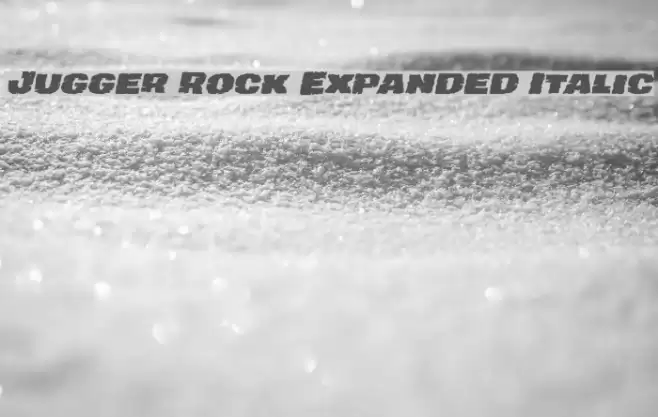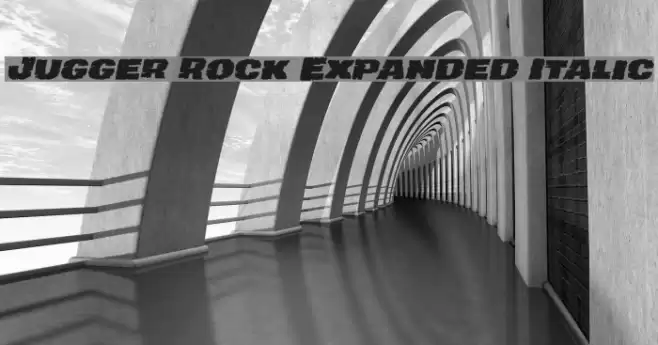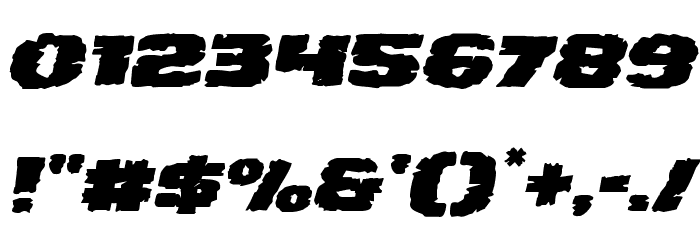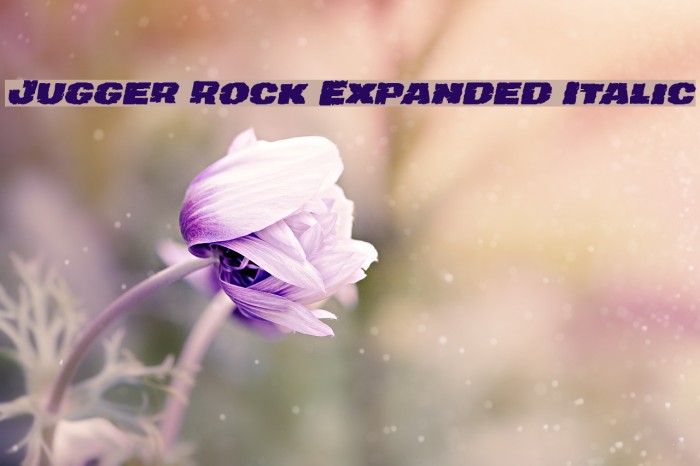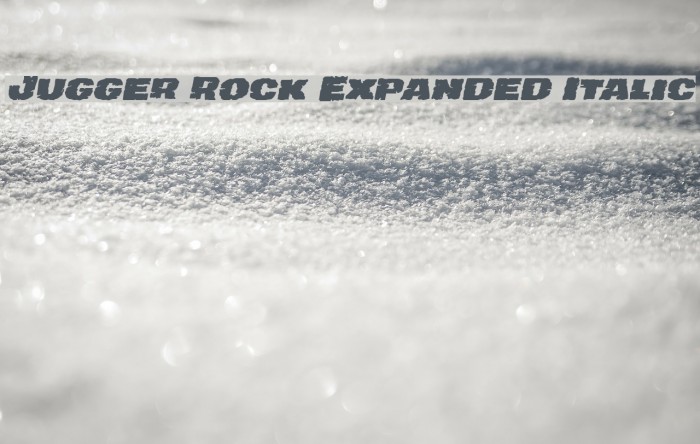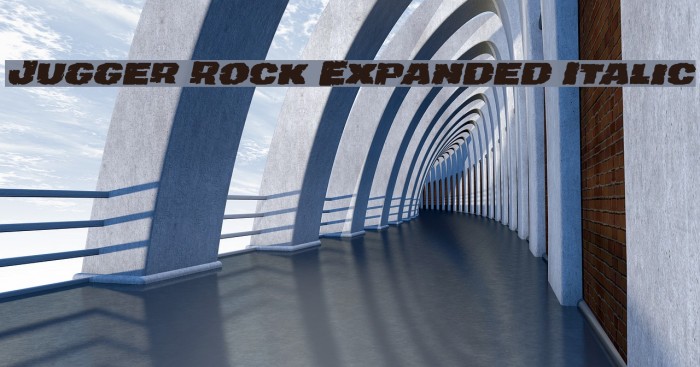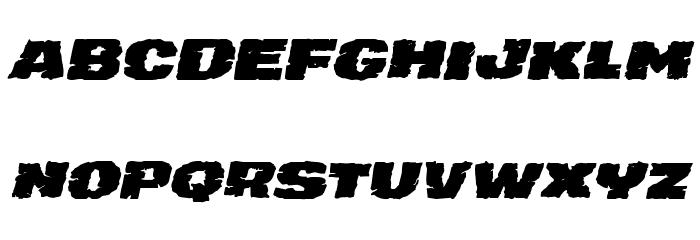
Jugger Rock Expanded Italic Font
Jugger Rock Expanded Italic Description
This font features a bold, rugged style with a distressed texture that gives it a gritty, rock-like appearance. The characters are expanded and italicized, adding a dynamic and energetic feel. The uppercase and lowercase letters maintain a consistent design, with thick strokes and rough edges that suggest a sense of movement and intensity. The numbers and special characters follow the same bold and textured style, making the font suitable for impactful and eye-catching designs. The overall look is both modern and edgy, perfect for projects that require a strong visual presence.
A bold, rugged, and textured font with an expanded and italicized style from Uncategorized fonts.
- Proposed Projects: Ideal for music album covers, sports team logos, event posters, and any design requiring a bold, impactful look.
- Overall Style: Modern, Edgy